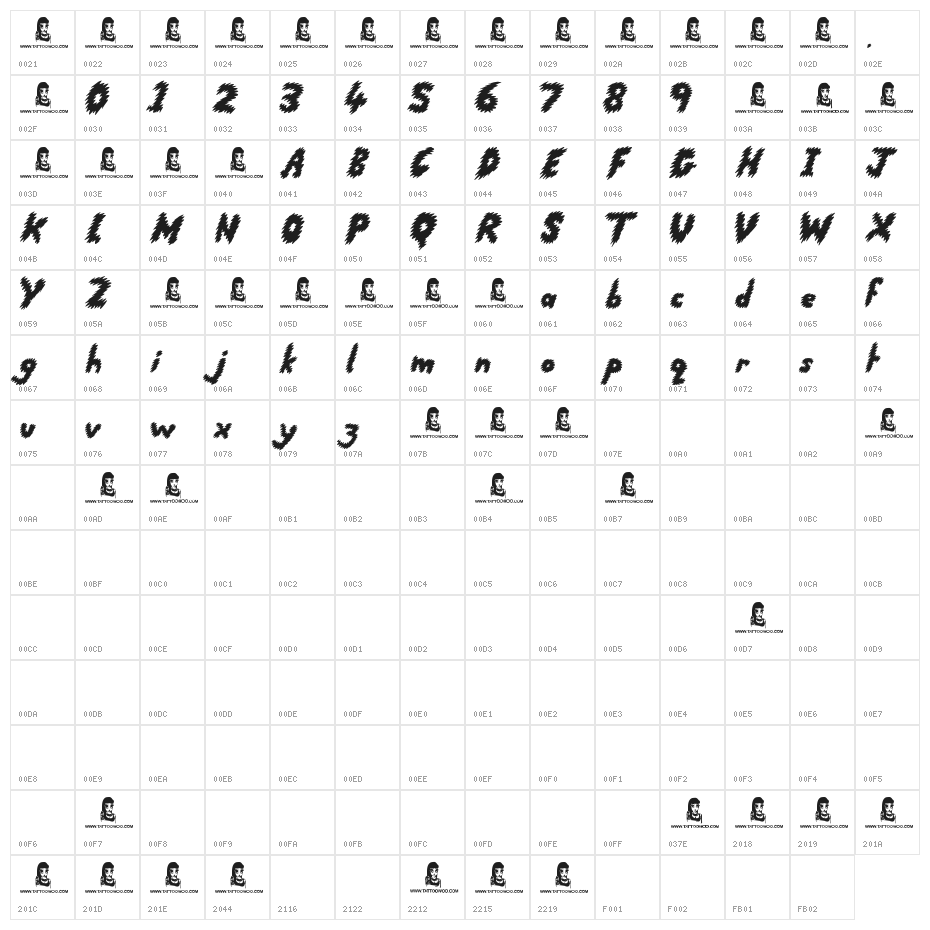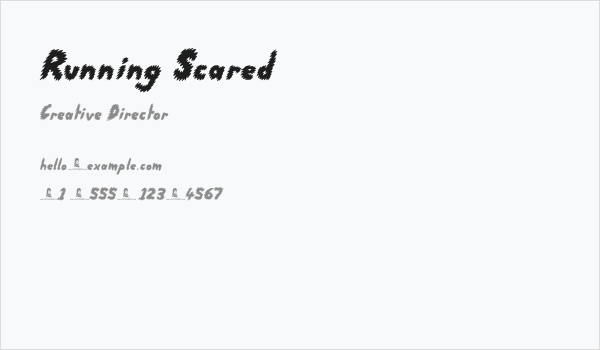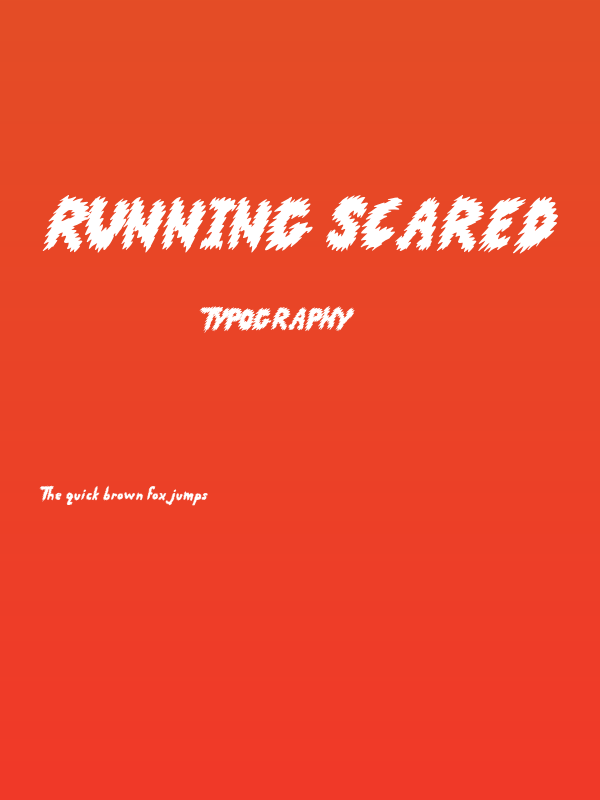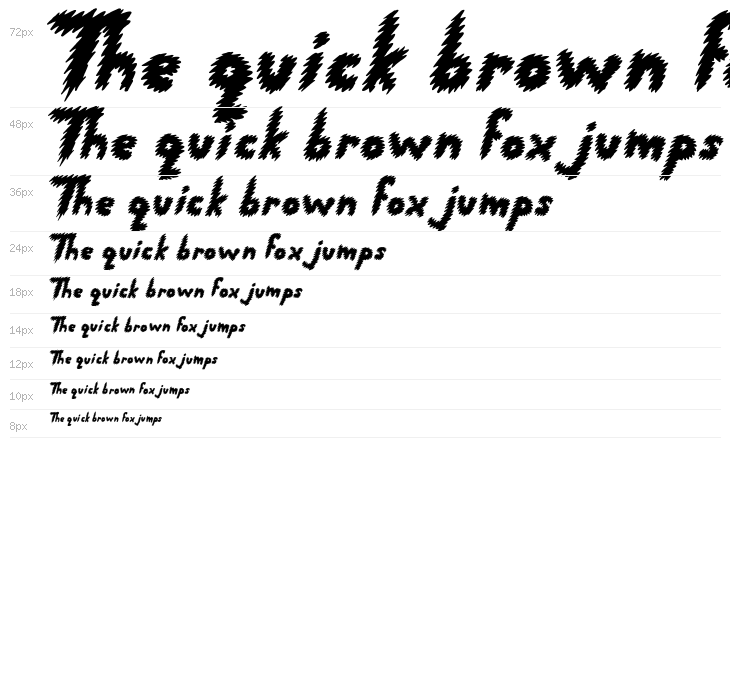
Running Scared Font
✎ Thick
| Vorgeschlagene Projekte | Perfect for Halloween-themed designs, horror movie posters, edgy branding, or any project needing a dramatic and eye-catching typeface. |